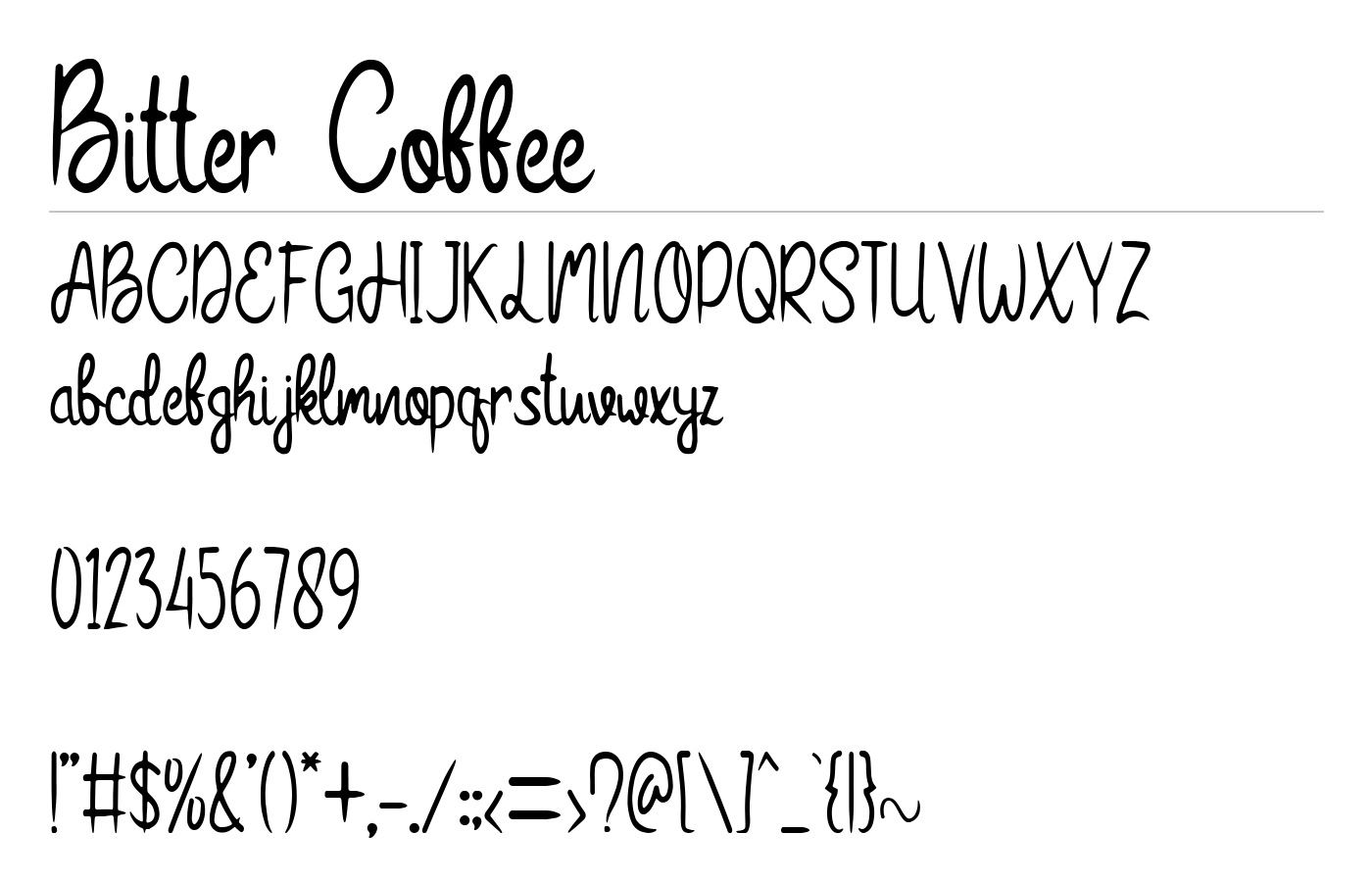
Bitter Coffee is a whimsical, handwritten-style font with a tall, narrow structure and playful curves, giving it a lively and informal feel. Its light weight and smooth, flowing lines make it ideal for creative projects that want to convey a friendly, casual, and approachable personality. This font works well for personal branding, invitations, packaging, and any design needing a touch of warmth and individuality.
Bitter Coffee Font
About Bitter Coffee Font